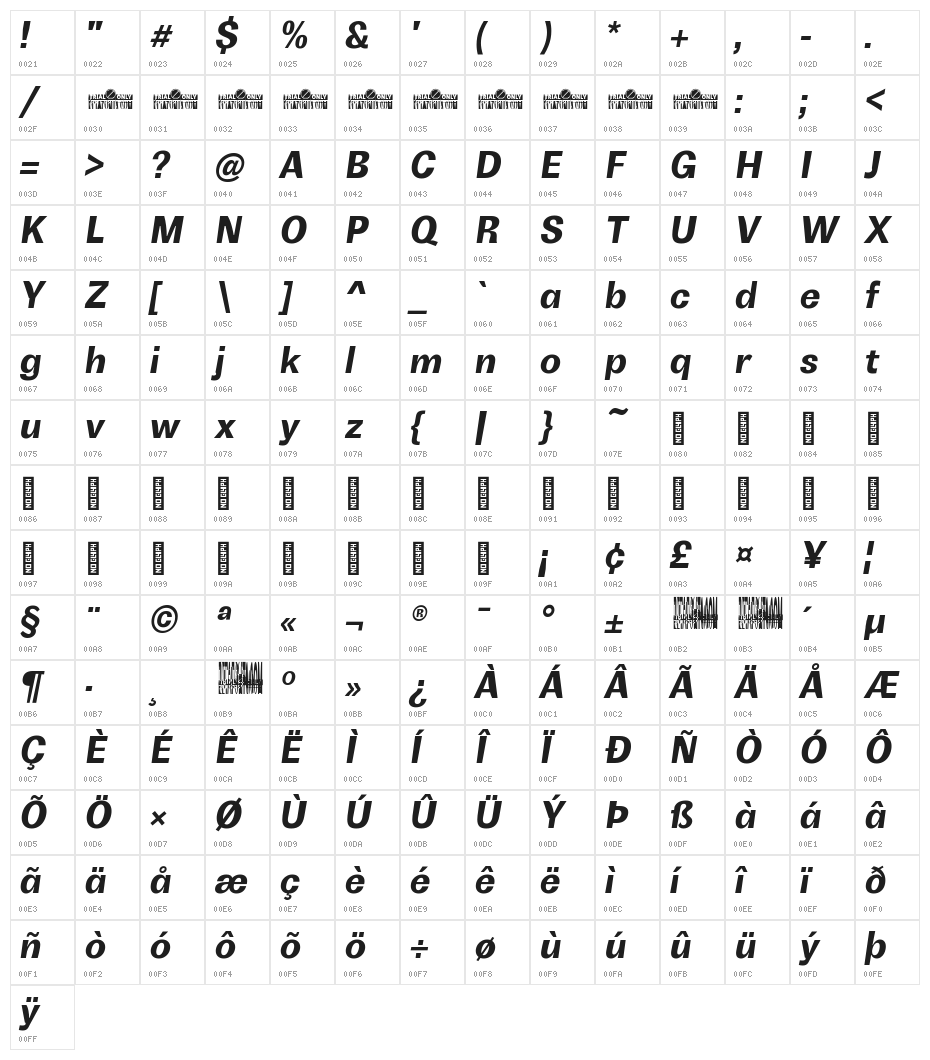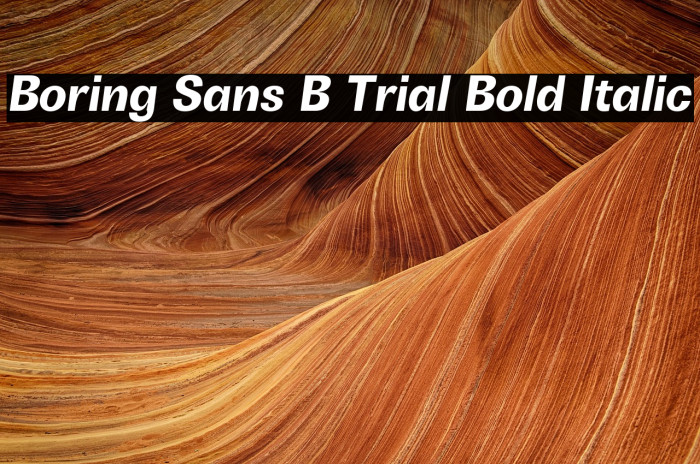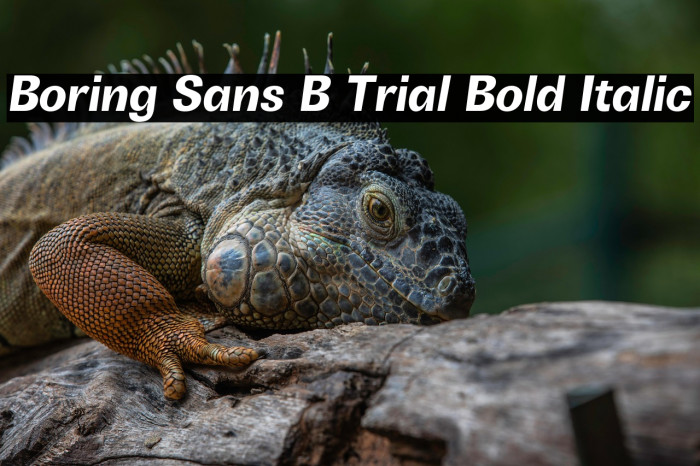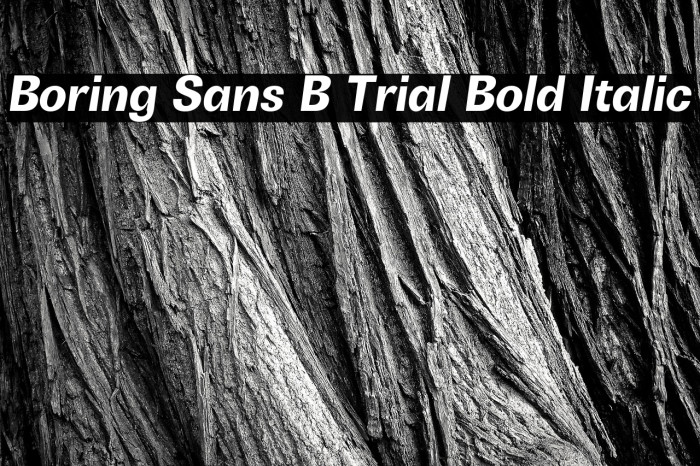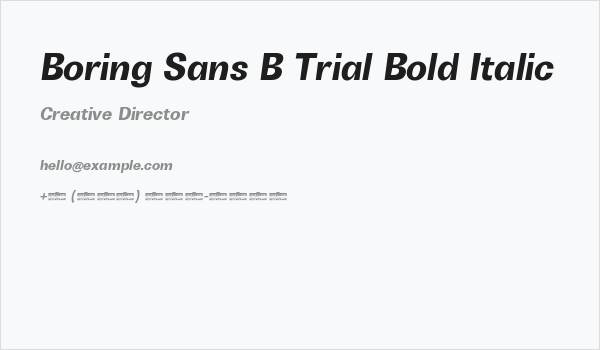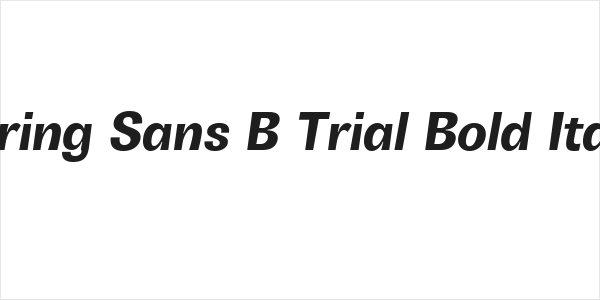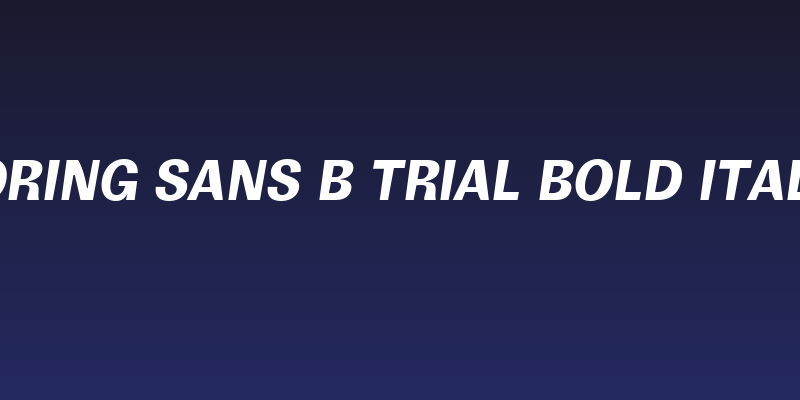
Boring Sans B Trial Bold Italic Font
Boring Sans B Trial Bold Italic Description
This font exhibits a bold and italicized style, characterized by its clean and straightforward sans-serif design. The letters are uniformly thick, providing a strong and assertive appearance. The italic slant adds a dynamic and modern touch, making it suitable for attention-grabbing headlines and titles. The uppercase and lowercase letters maintain a consistent width, ensuring readability and balance. The numerals and special characters are designed with the same boldness, integrating seamlessly with the alphabetic characters. Overall, this font combines simplicity with a contemporary flair, making it versatile for various design applications.
| Use Case | Headlines, Logos, Advertising |
| Proposed Projects | Ideal for branding, advertising, headlines, and digital media where a strong and modern presence is desired. |